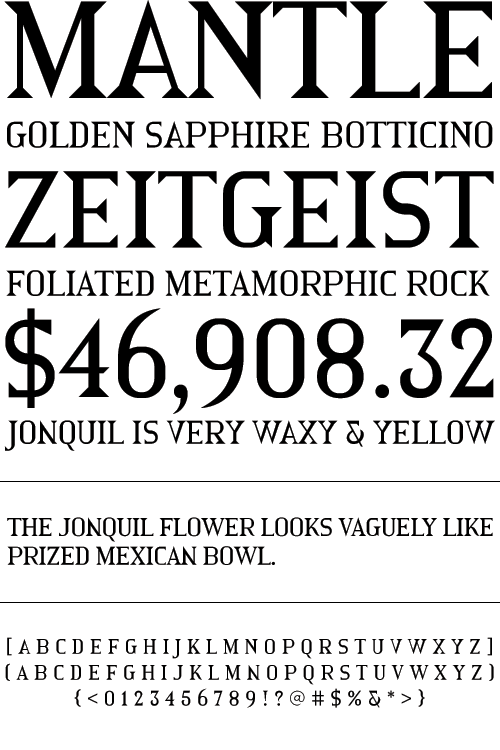
Marble Roman
This is an updated version of my free typeface with the same name. It has been gone over in every regard, letters cleaned up, spaced, kerned, and accented characters have been added. This Latin style all-caps font was inspired by a sign I photographed near Redwood City, CA. I was in awe of how some amateur lettering can be so poorly done, but also so visually appealing.